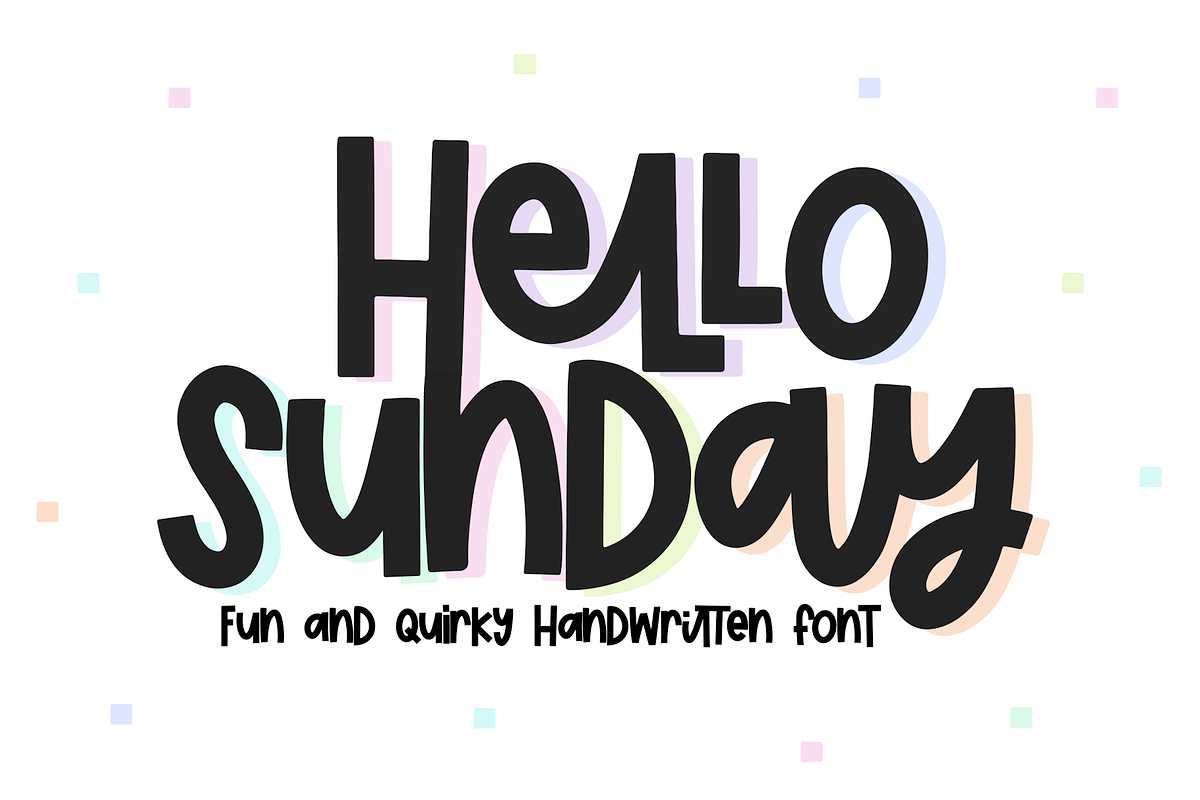
Hello Sunday | Fun Handwritten Font Free Download
Hello Sunday Fun Handwritten Font Free Download is a delightful and whimsical script typeface that brings a cheerful, natural vibe to your design projects. Ideal for quotes, comic books, greeting cards, and craft goods, Hello Sunday adds a playful and sweet touch to your creations.
Designed by MJ Type, Hello Sunday features hand-lettered characters that emulate authentic handwriting, enhancing the personal feel of your designs.